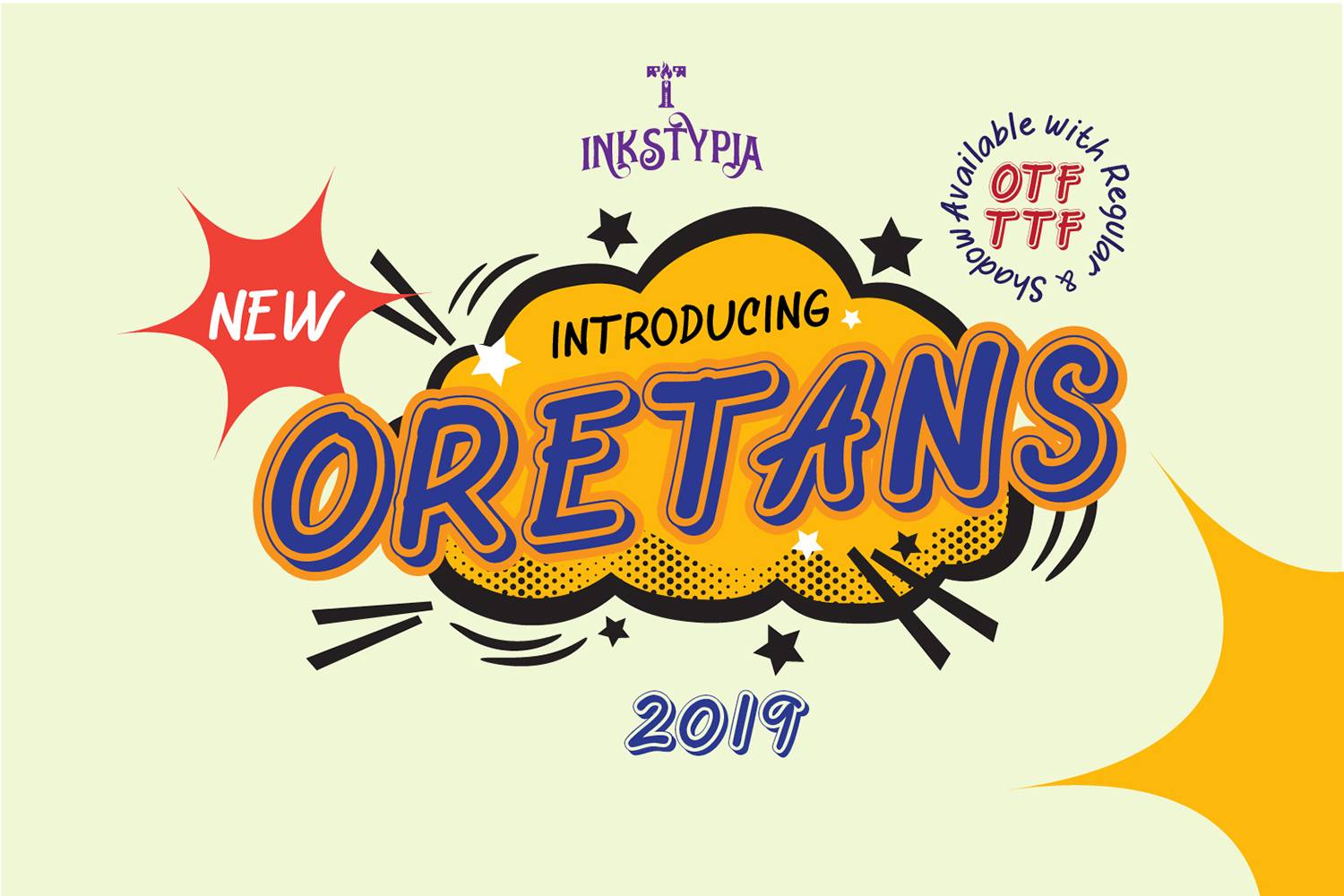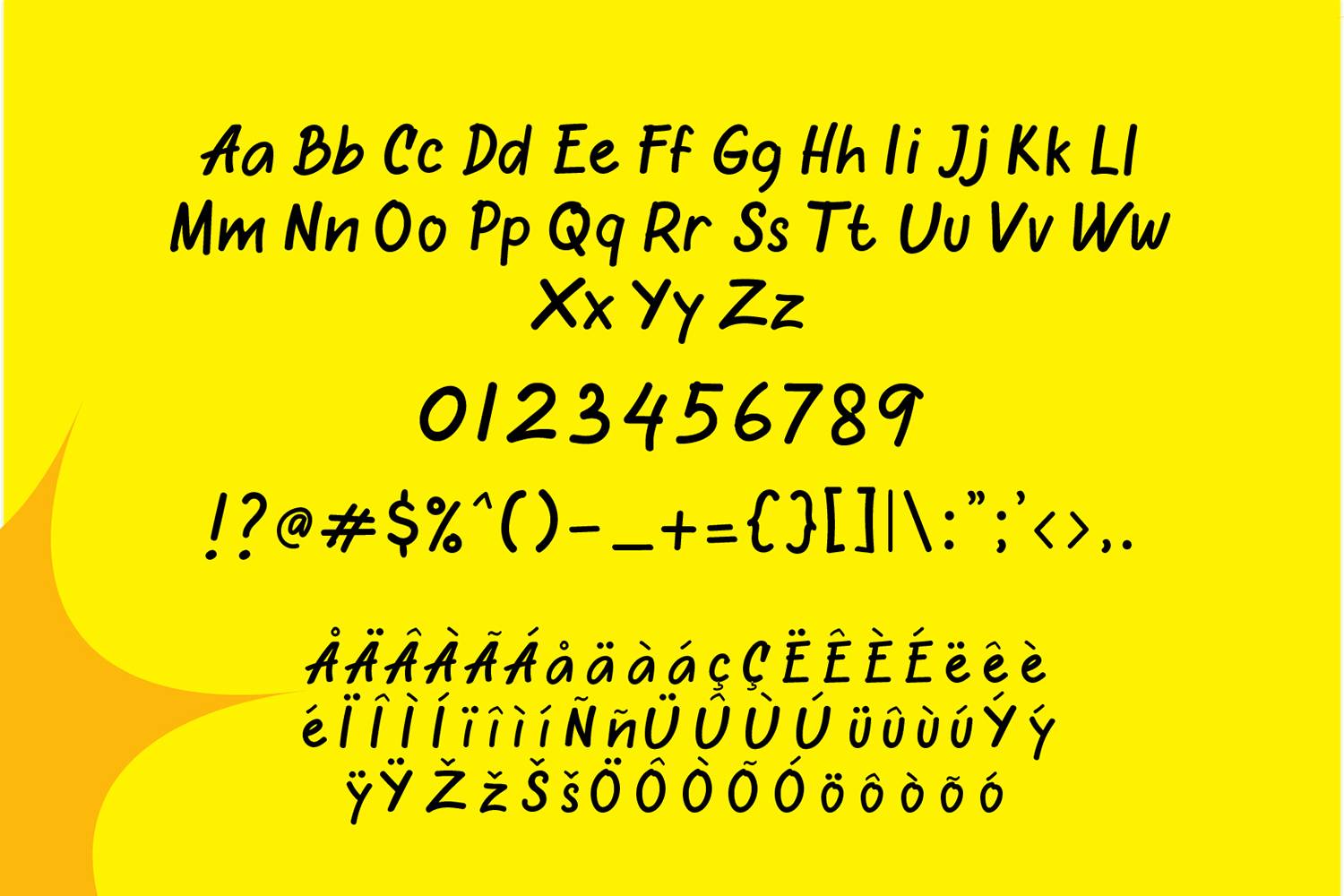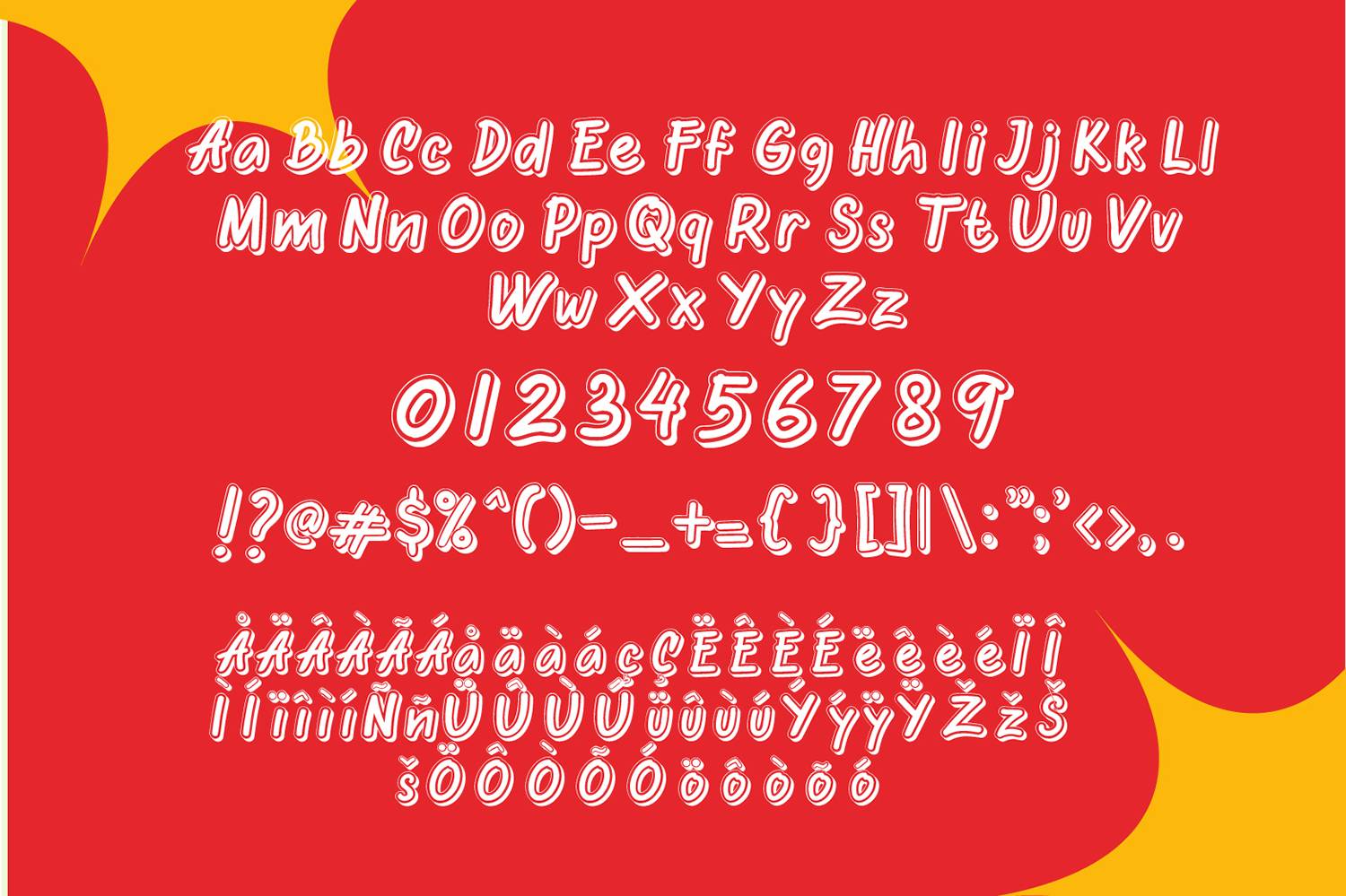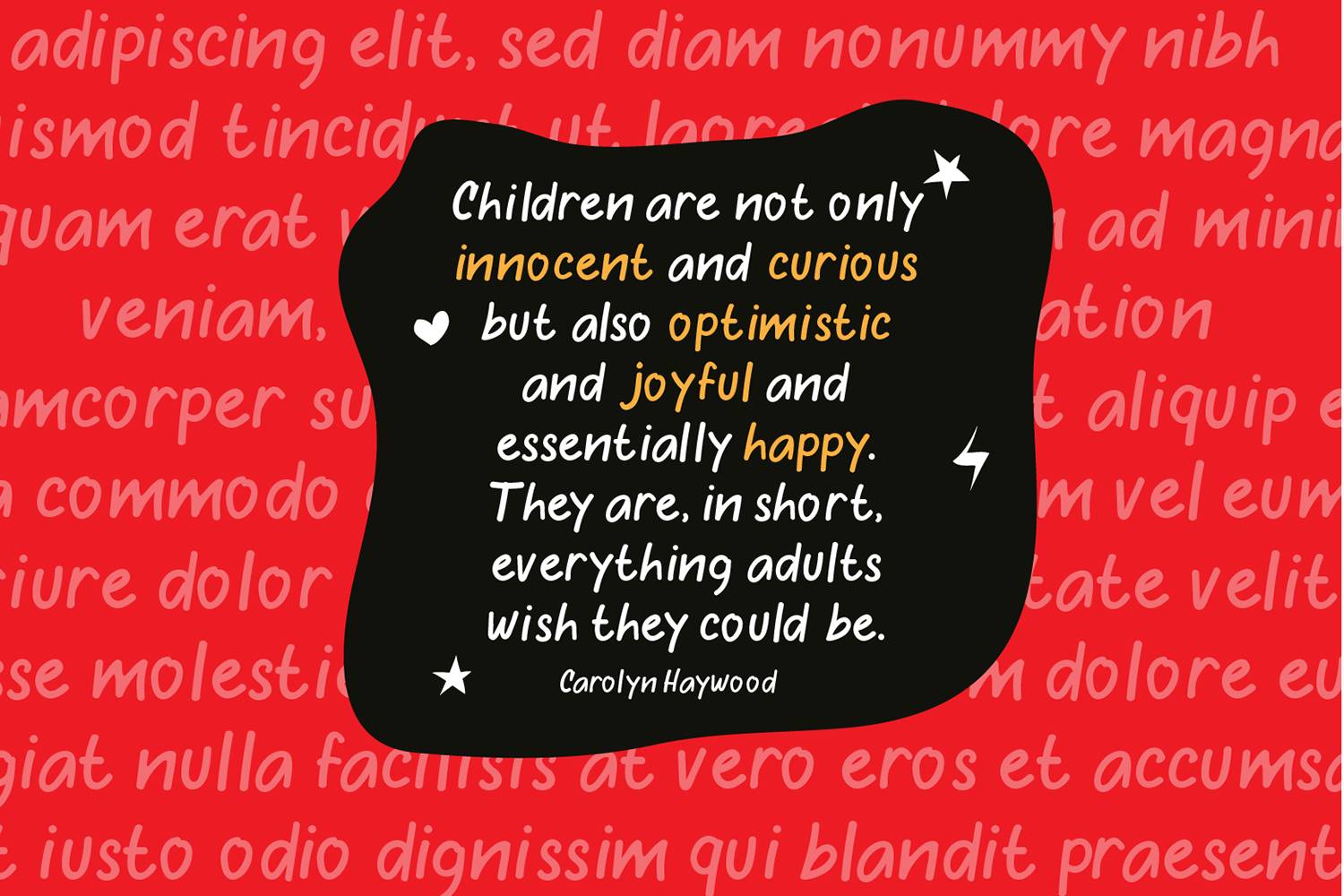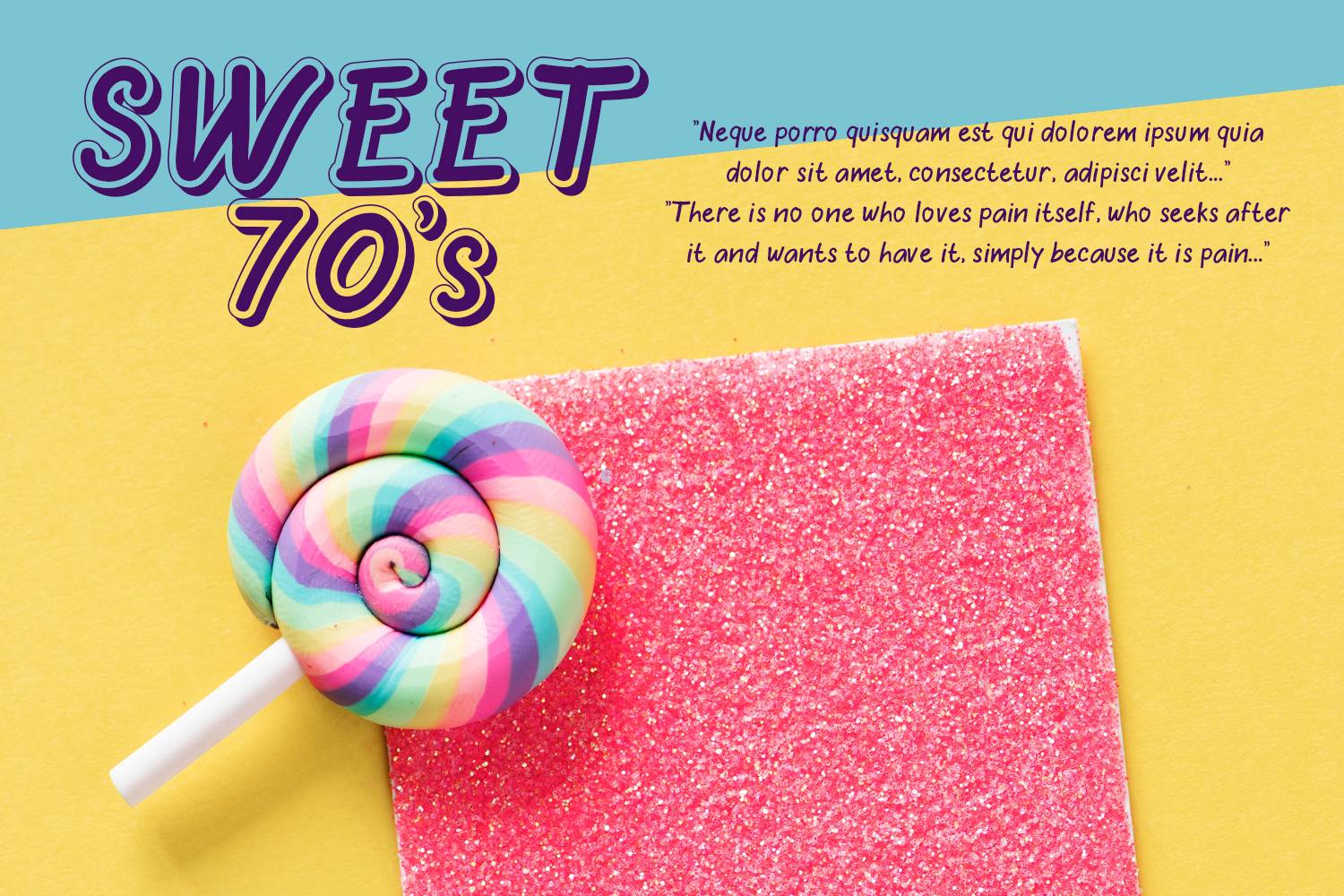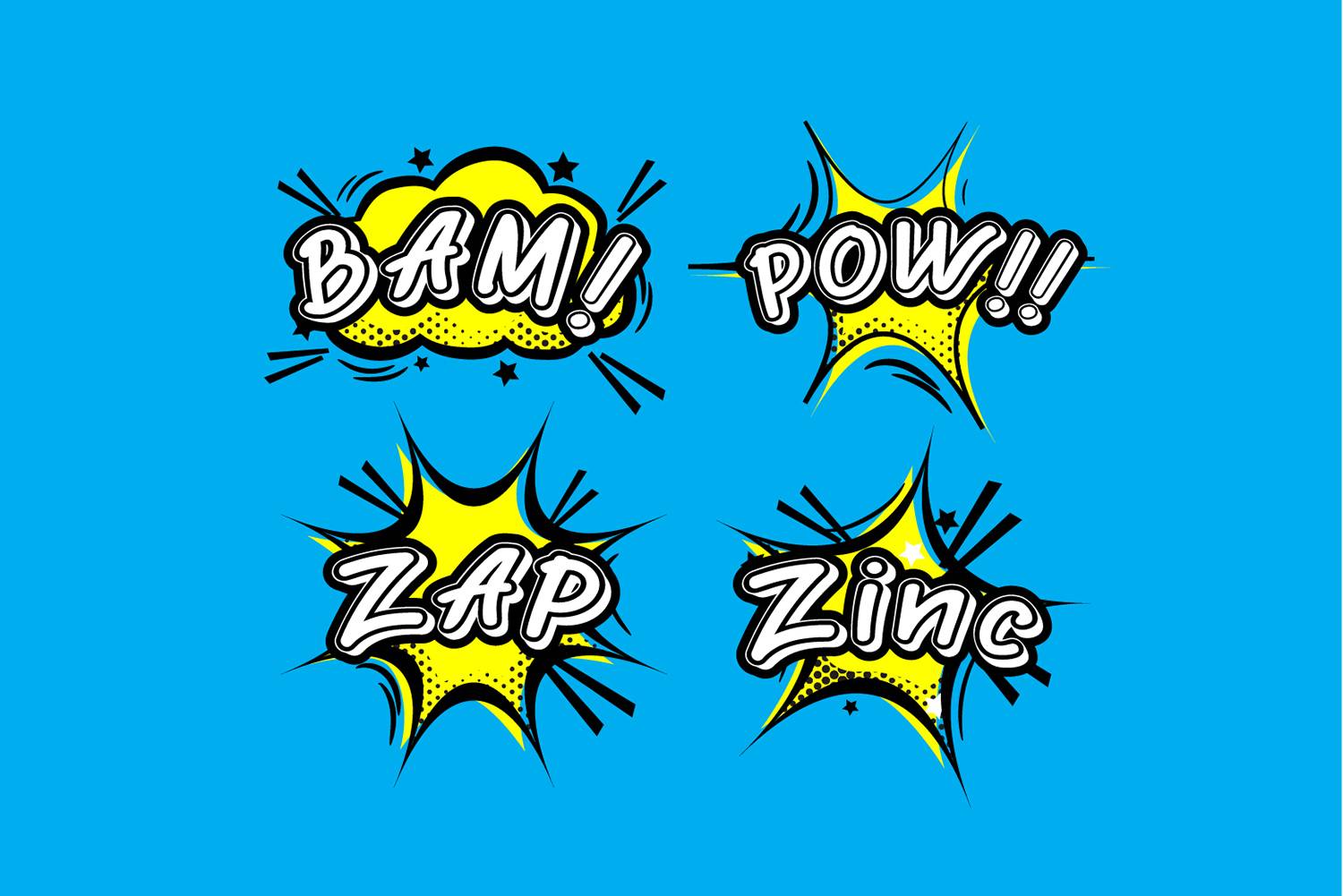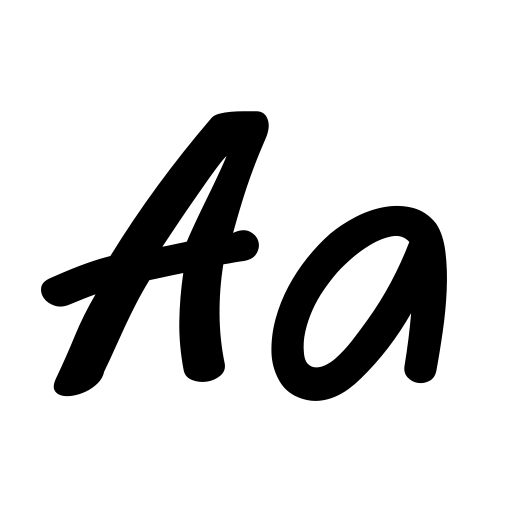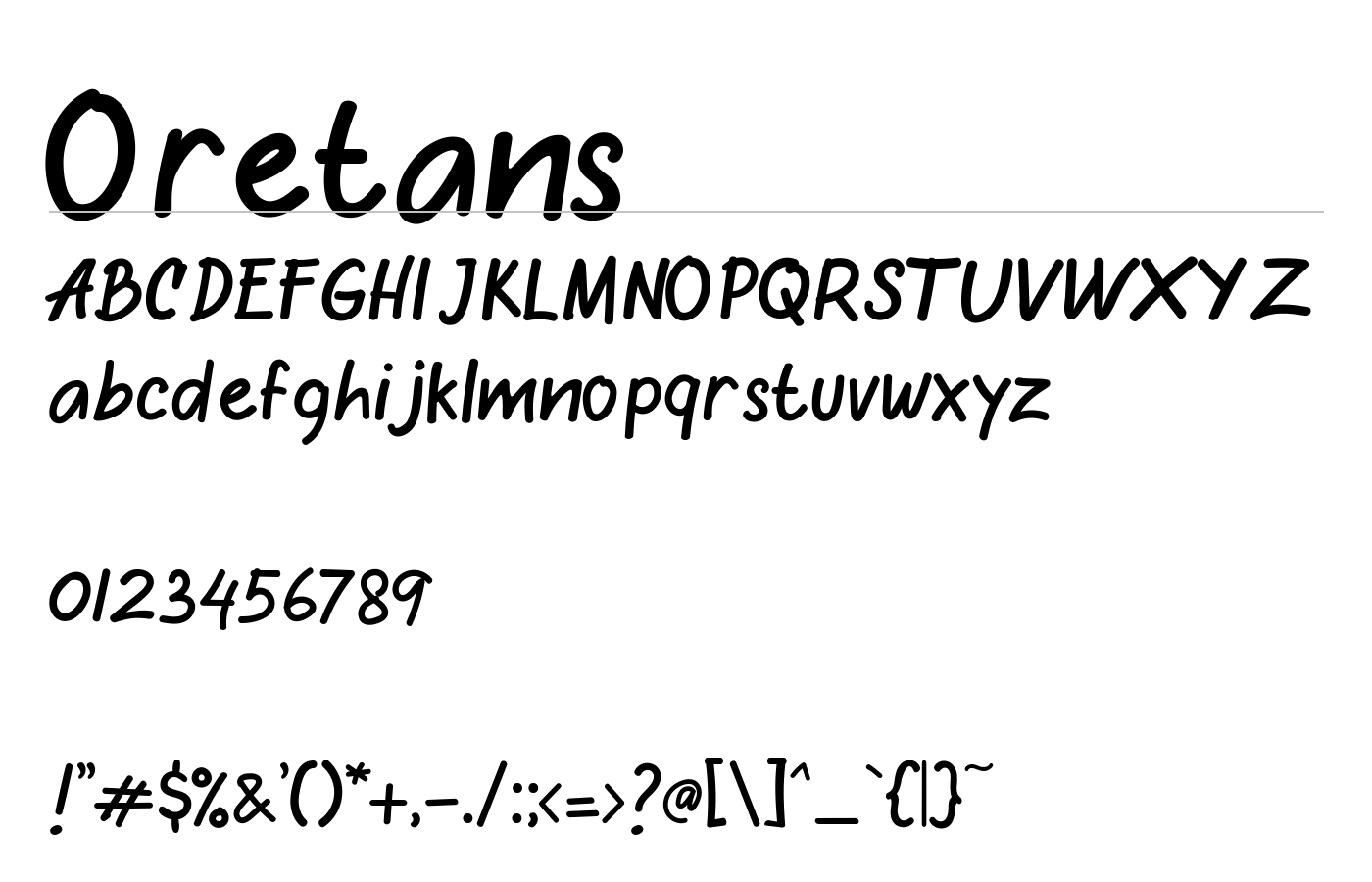
Oretans is a casual, handwritten sans serif font with a friendly and approachable vibe. Its moderate weight and slightly condensed letterforms with smooth, rounded strokes create a warm and informal feel, perfect for playful branding, youth-oriented designs, or personal projects. This font works well in headlines, logos, and creative packaging where an inviting, hand-crafted touch is desired.
Oretans Font
About Oretans Font
| Font family | Oretans Font |